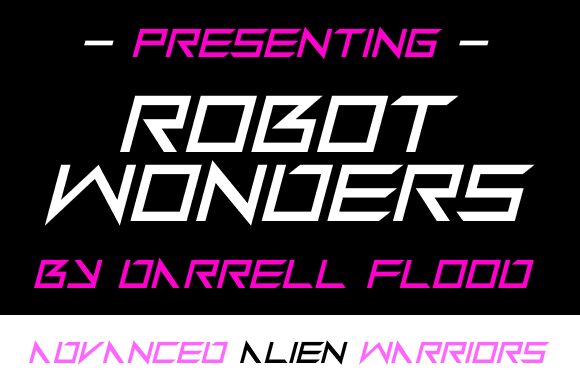
Robot Wonders
Robot Wonders, designed by Hawtpixel, is a display font that epitomizes futuristic aesthetics with striking impact. Its bold expanded width and geometric constructs command attention wherever it is used. This font showcases sharp angles and clean lines, creating a sense of modernity and technological advancement.
The unique characteristics of Robot Wonders make it an ideal choice for projects that aim to exude innovation and forward-thinking design. Perfect for tech branding, sci-fi movie posters, modern digital interfaces, and cutting-edge advertising campaigns, this font ensures your message stands out with clarity and style. With its visual appeal rooted in the promise of tomorrow's technology today, Robot Wonders is the go-to typeface for designers looking to highlight sophistication and futurism in their work.